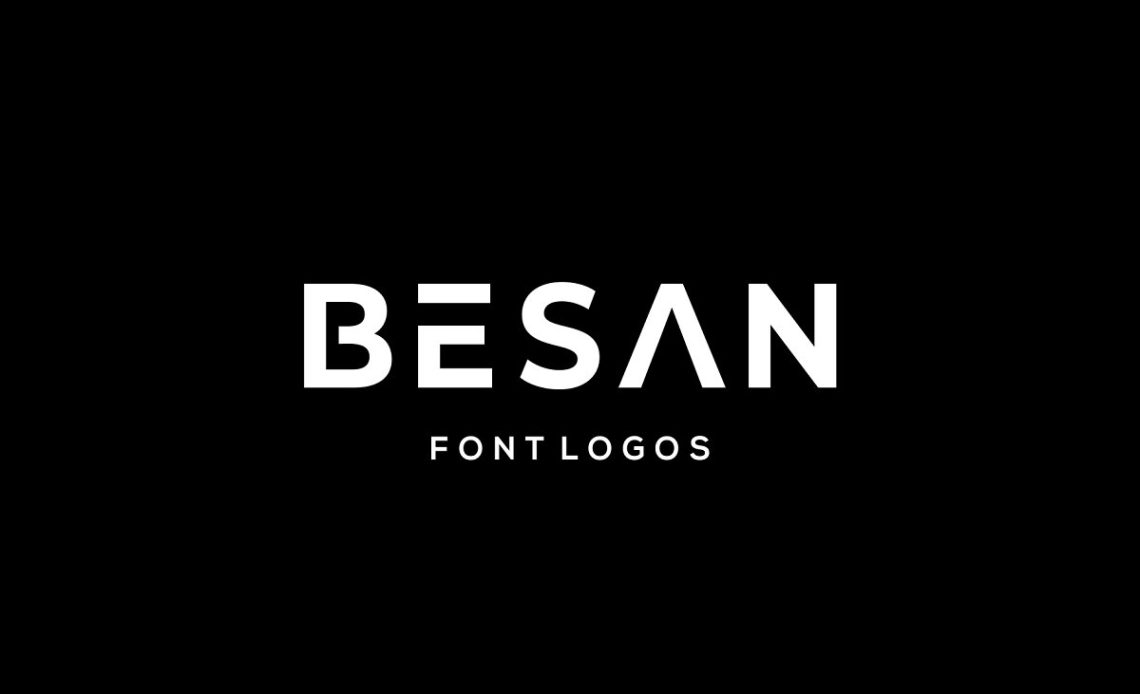
Are you looking for a new font to give your logo or title a minimalist and clean design? Look no further than BESAN - the perfect font for creating word marks, titles, and taglines. This sans serif font, created by aka aqib, is a must-have for any designer looking for a font that is both modern and versatile.
BESAN is a font that is perfect for those who want to create a logo with an icon. It is suitable for any design that requires a minimalist and modern touch. Whether you're a new business owner, a freelancer, or a designer looking to refresh your portfolio, BESAN is the perfect choice.
If you're looking for a font that is easy to use and perfect for any minimalist design, BESAN is the font for you. It's the perfect choice for those who want to elevate their logo or title design without sacrificing simplicity. So why wait? Download BESAN today and start creating stunning designs!